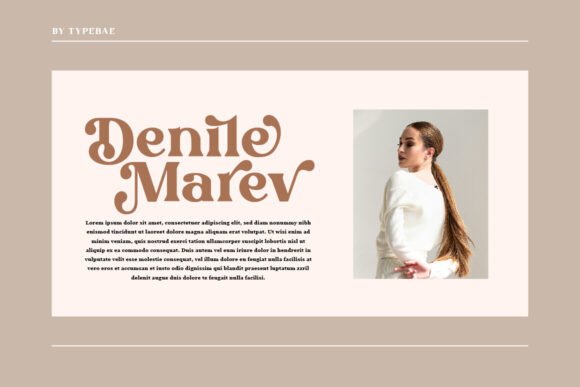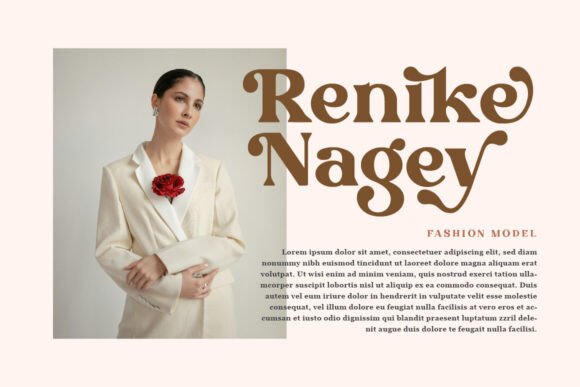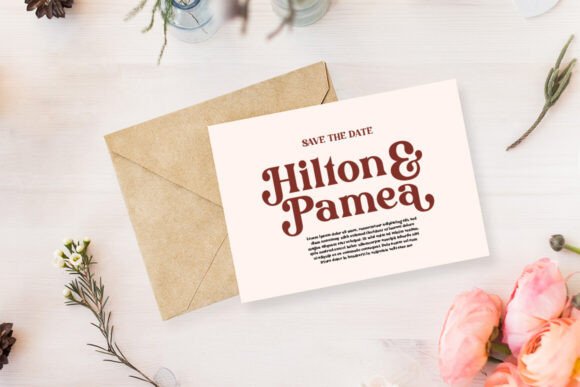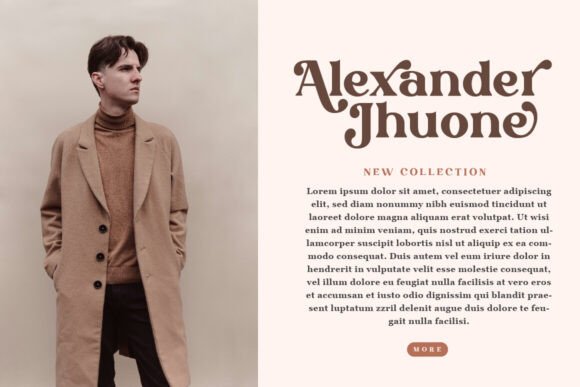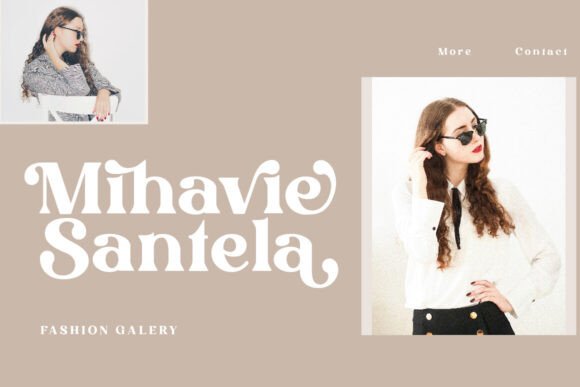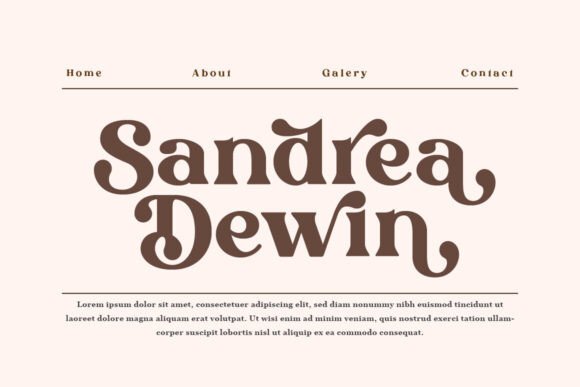
Introducing Drigha Font: A Timeless Serif Font for Vintage-Inspired Designs
Are you a designer or crafter looking for a font that can add a touch of modern elegance and retro charm to your projects? Look no further than Drigha Font, a stylish serif font that is perfect for layouts inspired by the vibrant aesthetics of the ‘60s and ‘70s. With its bold, clean, and playful design, Drigha Font is sure to make your designs stand out from the crowd.
A Font that Blends Modern Elegance with Retro Charm
Drigha Font is a unique blend of modern and vintage elements, making it perfect for designers who want to create a distinctive look for their projects. The font’s serif design gives it a classic and sophisticated feel, while its bold and clean lines add a touch of modernity. The playful design elements, such as the font’s subtle curves and swashes, add a touch of whimsy and fun to the font.
PUA Encoded for Easy Use
Drigha Font is PUA (Private Use Area) encoded, which means that it can be easily used in a variety of design software, including Adobe Photoshop and Illustrator. This encoding also allows for easy access to the font’s alternate characters and ligatures, making it simple to create a unique and customized look for your designs.
Over 90 Unique Alternates and 20 Ligatures
One of the standout features of Drigha Font is its extensive range of alternate characters and ligatures. With over 90 unique alternates and 20 ligatures, you can create a distinctive vintage look for your projects effortlessly. The alternates and ligatures allow you to add a touch of personality to your designs, making them more engaging and eye-catching.
Perfect for Vintage-Inspired Designs
Drigha Font is perfect for designers who want to create vintage-inspired designs that evoke the spirit of the ‘60s and ‘70s. The font’s bold, clean, and playful design makes it ideal for use in a variety of design projects, including:
- Brochures and catalogs
- Social media graphics and ads
Why Choose Drigha Font?
So why choose Drigha Font for your design projects? Here are just a few reasons:
- Unique and distinctive design: Drigha Font’s blend of modern elegance and retro charm makes it a standout font that will set your designs apart from the crowd.
- Easy to use: The font’s PUA encoding and extensive range of alternate characters and ligatures make it simple to create a customized look for your designs.
- Versatile: Drigha Font is perfect for use in a variety of design projects, from logos and branding materials to posters and social media graphics.
- High-quality: The font is designed to high standards, ensuring that it will look great in any design project.
In conclusion, Drigha Font is a stylish serif font that is perfect for designers and crafters who want to add a touch of modern elegance and retro charm to their projects. With its bold, clean, and playful design, extensive range of alternate characters and ligatures, and PUA encoding, Drigha Font is a versatile and high-quality font that is sure to make your designs stand out from the crowd.
Whether you’re a professional designer or a crafter looking for a unique font to add to your collection, Drigha Font is a great choice. So why not give it a try and see how it can elevate your designs to the next level?